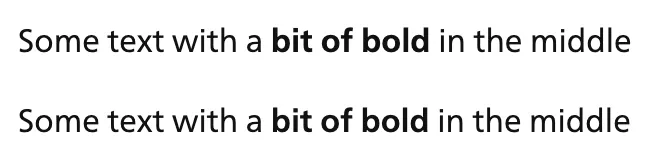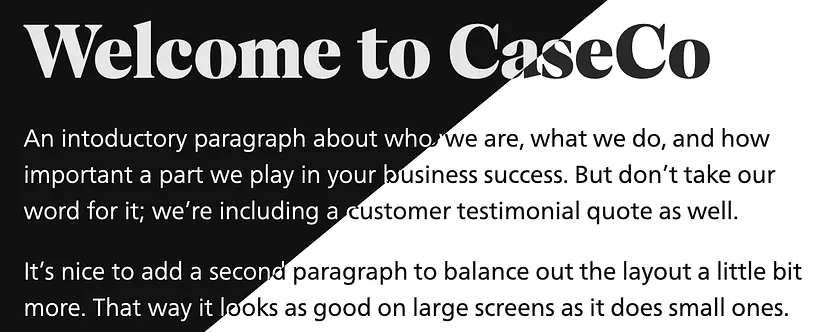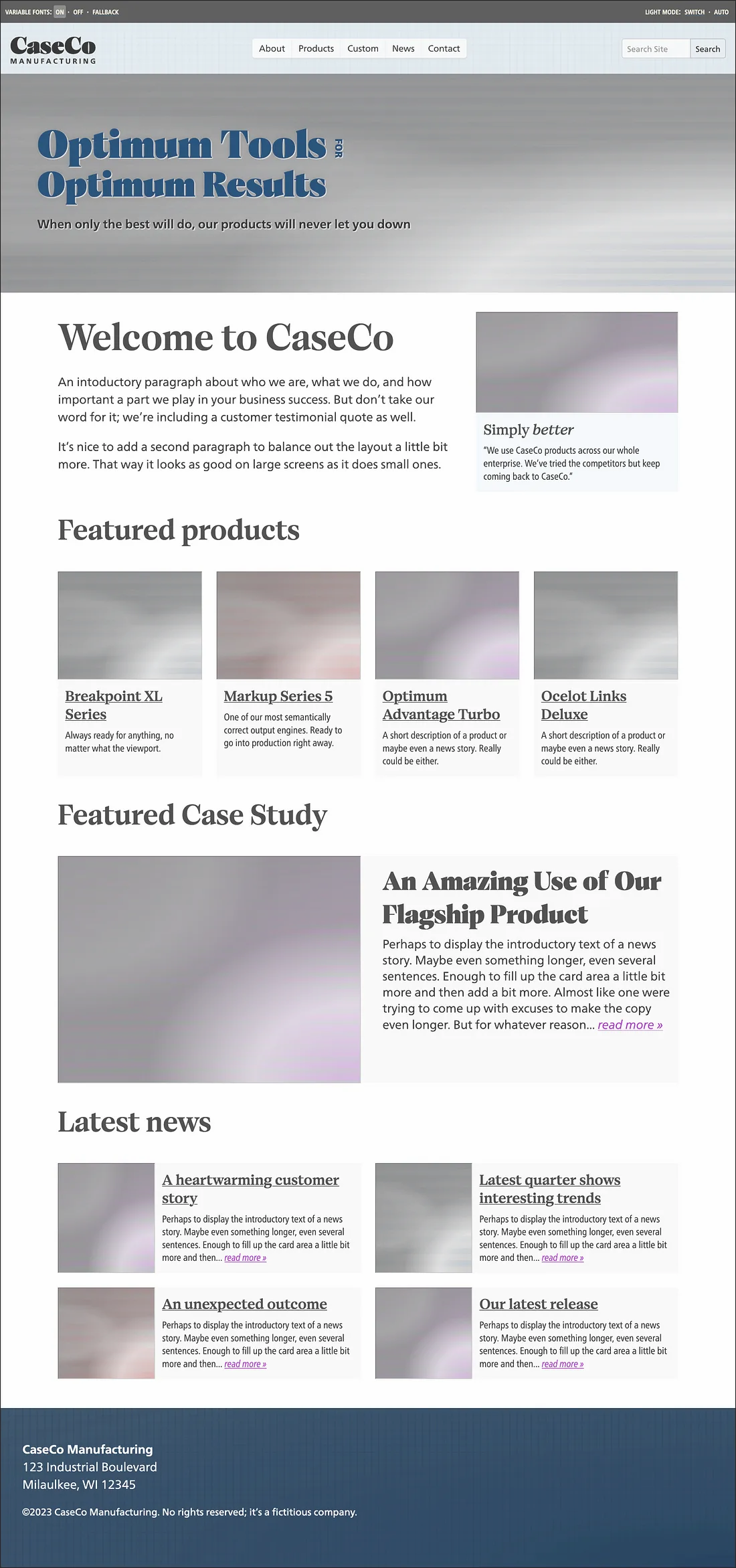
CaseCo: A Case for Variable Fonts.
Caseco case study showcasing the use of variable fonts.
Variable fonts have been around for a few years now and are very well supported. But how much do we know about all the ways they can benefit a brand and its audience? We’ll take a look at how CaseCo, an admittedly fictitious company, has incorporated them throughout their brand identity and web experience: from brand voice and fidelity, to more expressive typographic choices, to being more accessible to more people across more devices — and even some benefits for website engineering and infrastructure teams. Even if only one or two of these use cases make sense for your work — variable fonts are ready to make a huge impact for your organization.
Let’s clear the air
When it comes to typography on the web, there is a lot of different advice about how many fonts make for ‘good typography’ in a user experience. Often it’s defined as best to use only two or three fonts — with the reasons given of consistency and page loading speed. But this conflates the idea of good typography with web performance, and is directed squarely at folks often with little or no formal training in typographic design. This false equivalency has been promoted for years, to the detriment of brand expression, readability, and the overall homogenization of our collective experience on the web.
But since type is the voice of our brand — and our words — that definition is woefully lacking. ‘Good typography’ isn’t about only using two or three fonts — it’s about using the correct font in the appropriate weight at the right size. The necessary variety of fonts to convey voice, maintain legibility, and create the hierarchy necessary to impart the spirit of the brand and the contents of the message. The 400 ‘normal’ weight may be great for body text set at 16 pixels, but the default for bold (700) may be perfect for larger headings, but a touch too heavy at body copy size. And pull quotes might be perfect when set larger in an even lighter weight. So right away that’s at least 4 weights — potentially with an even heavier one for display use on the ‘hero’ element on the home page. And all of that might be just a bit off when set in reverse contrast.
Good typography isn’t a number of fonts; it’s about the correct font in the appropriate weight at the right size to convey your message and brand
Yet we cannot forget that page loading speed plays a critical part in user experience on the web. After all, performance is the first aspect of design that a user will encounter. It doesn’t matter how beautiful the layout or typography if it never shows up on the screen. This is where variable fonts can really shine: giving designers access to the full range of weights in a single file download. The file size tradeoff is typically balanced out with 3 or 4 static weights, which can finally put that bad advice out to pasture. You can read more about the evolution of typography with variable fonts on Monotype.com.
Our cast of characters
For our example company, the brand design centers around the use of two typefaces, both of which are available in static and variable formats: The Cotford™ font software (the static version) has both Text and Display options in a range of weights in both upright and italic. The Cotford™ Variable font software has weight and optical size axes in both upright and italic variants, handling the job of 17 individual font files with only 2 variable ones. The Neue Frutiger® font software in static form is comprised of 43 fonts in an impressive range of weights, with a condensed range as well — all of which are available in both upright and italic. The Neue Frutiger® Variable font software accomplishes all of this in only two files — making for a tremendously dynamic and useful addition to our typographic system.
Brand voice and vocal range
Even today — over a decade since embedded web fonts became widely supported — there are countless examples of organizations still recommending ‘web safe’ fonts like Arial® or Georgia® in their brand guidelines. Still more are relying upon substitute fonts on their websites rather than their core brand typographic choices. This can be for many reasons, such as licensing costs or restrictions, and is further complicated by performance constraints mentioned above that limit the use of fonts to a very small number. But in an ever-more-competitive consumer landscape, maintaining a strong brand identity is a crucial differentiator. Variable versions of core brand typefaces enable use of those typefaces across a wider range of weight, width, optical size, and more. Loading a single variable font allows use of its entire range, so designers can tailor font weight with font size for better legibility — or embrace an optical size axis for more tailored and expressive headlines without compromising body text readability.
Design System Typography and Dynamic Range
Most organizations have moved to embrace Design Systems for their digital design efforts. Design Systems are the extension and interpretation of Brand Guidelines for use in web and mobile app design. Beyond the basics of color usage and typographic hierarchy, the most mature design systems take device size and context of use into consideration to deliver the best reading comfort, editorial expressiveness, and adaptability for data-dense display needs.
Reading comfort
The best typography for reading is going to be impacted by device size and context of use. Beyond the basics of font size, line height, and line length (the classic triad in designing a good paragraph) — there are new contexts of use such as supporting light and dark mode (think: contrast inversion). A small difference in font weight when moving from dark text on a light background to light text on a dark background can do wonders to maintain good legibility in these scenarios (we’ll talk more about that in a bit). Even deciding ‘how bold is bold’ can benefit from some nuance: It may be that a weight of 700 is great when setting bolder headlines, but may close up apertures and bowls too much when bolding text inline within body copy. There a weight of 625 or 650 may work better. It’s even worth considering setting body copy at 95% width on the smallest screen devices in order to balance readability with better line wrapping.
The top line has the bold text set at 700, the bottom line bold is 620. It still shows emphasis without getting ‘muddy’ in the details
Comparison of bold text at weights 700 and 620, showing clearer detail at 620.
Data-dense displays & enterprise applications
Some applications just need to display a lot of text or data. Think sports statistics, data tables, or complex form-based customer service applications. In scenarios like these it is often advantageous to make more use of the whole screen to create more efficient workflows. Having a width axis can tailor typography to display more data without legibility compromise — even allowing the preservation of a bit more space between elements to maintain hierarchy and separation.